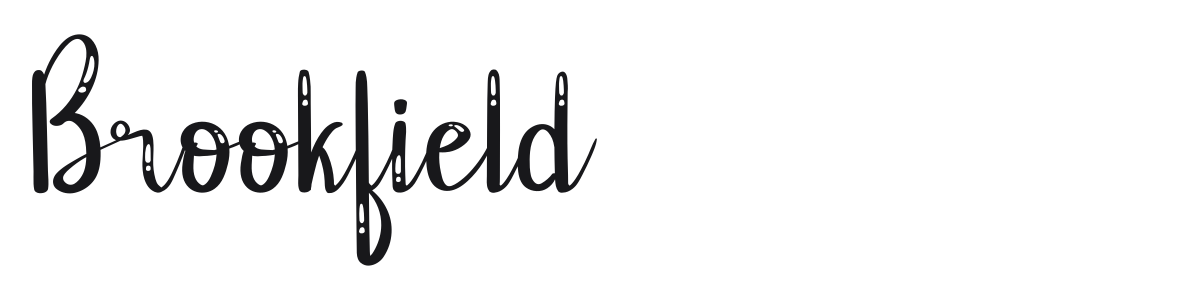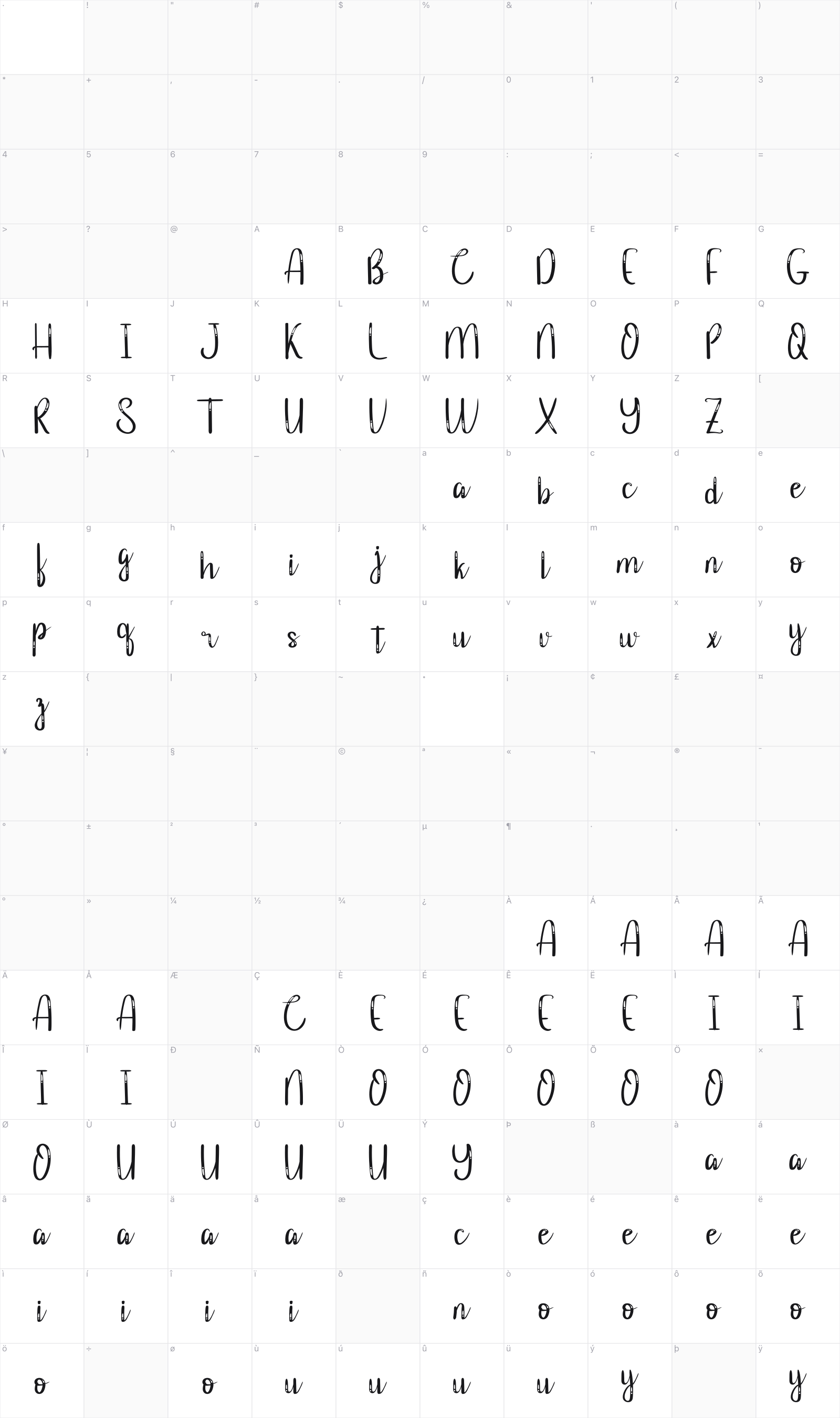
Brookfield
Brookfield is a casual calligraphic script with a lively bouncy baseline and flowing connected strokes. Teardrop details at key terminals add a distinctive hand-crafted touch that separates it from generic brush scripts. It works well at large sizes for logos, packaging, and any brand that wants warmth without formality.